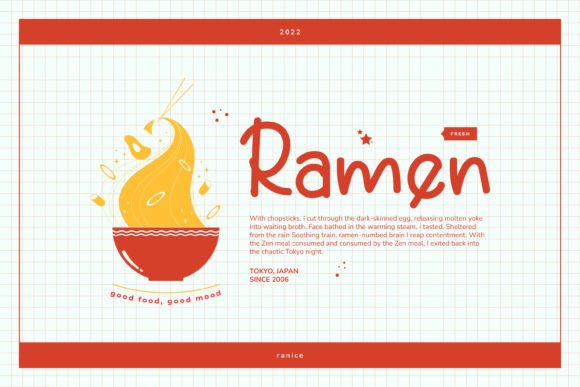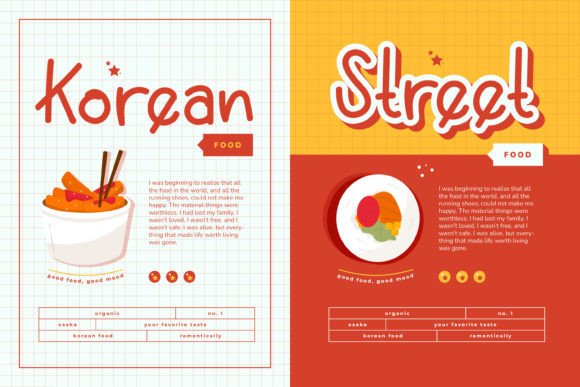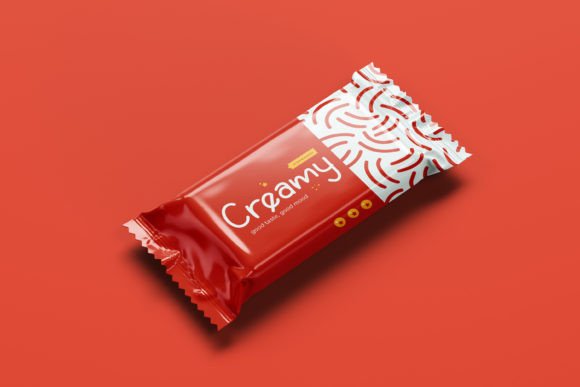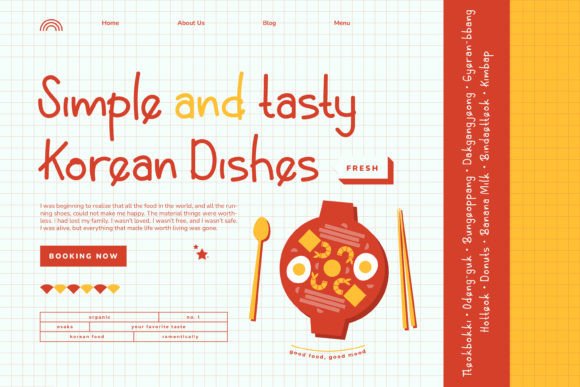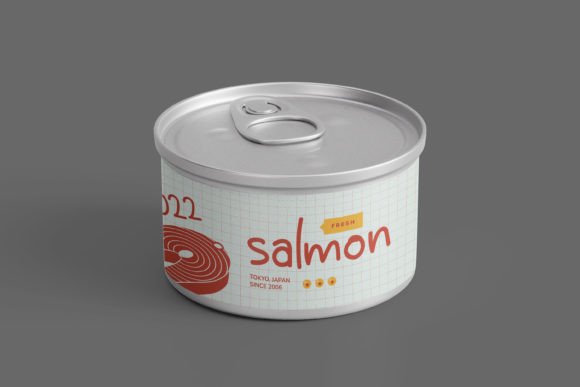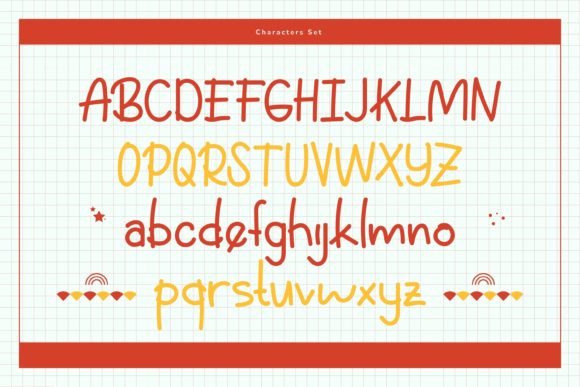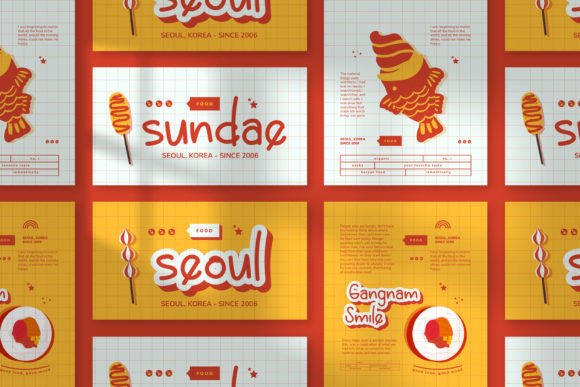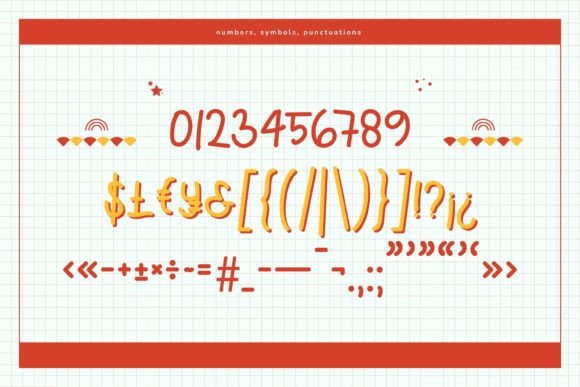
Ranice Font
About Ranice Font
Ranice font offers a charming and casual handwritten style that adds warmth and personality to your creative projects. Its relaxed yet elegant letterforms make it ideal for designs that require a personal and heartfelt touch. Whether you’re working on wedding invitations, thank you cards, greeting cards, logos, or business cards, Ranice delivers a beautiful handcrafted look.
Charming and Casual Handwritten Style
The Ranice font features smooth, flowing strokes that create an inviting and approachable appearance. Its balanced design provides clarity while maintaining a natural handwritten feel, making it perfect for various formal and informal projects.
Ideal Uses for Ranice Font
This versatile font works beautifully for:
• Wedding invitations and event stationery
• Thank you cards and greeting cards
• Logos and brand identity designs
• Business cards and professional materials
• Quotes and social media graphics
Use Ranice font to add charm and warmth to your designs.
Why Choose Ranice Font?
Designers appreciate Ranice for its:
• Charming and casual handwritten style
• Readable yet artistic letterforms
• Versatility across print and digital media
Add Warmth and Personality to Your Designs
Typography shapes the emotional tone of your projects. The Ranice fon brings a friendly and personal touch, helping your designs connect deeply with your audience. Perfect for occasions both formal and casual, this font enhances the uniqueness of your creative work.
Final Thoughts on Ranice Font
In summary, Ranice fon is a charming and casual handwritten script perfect for designers seeking a warm and approachable style. Add Ranice to your fon collection to create heartfelt, elegant, and memorable designs.